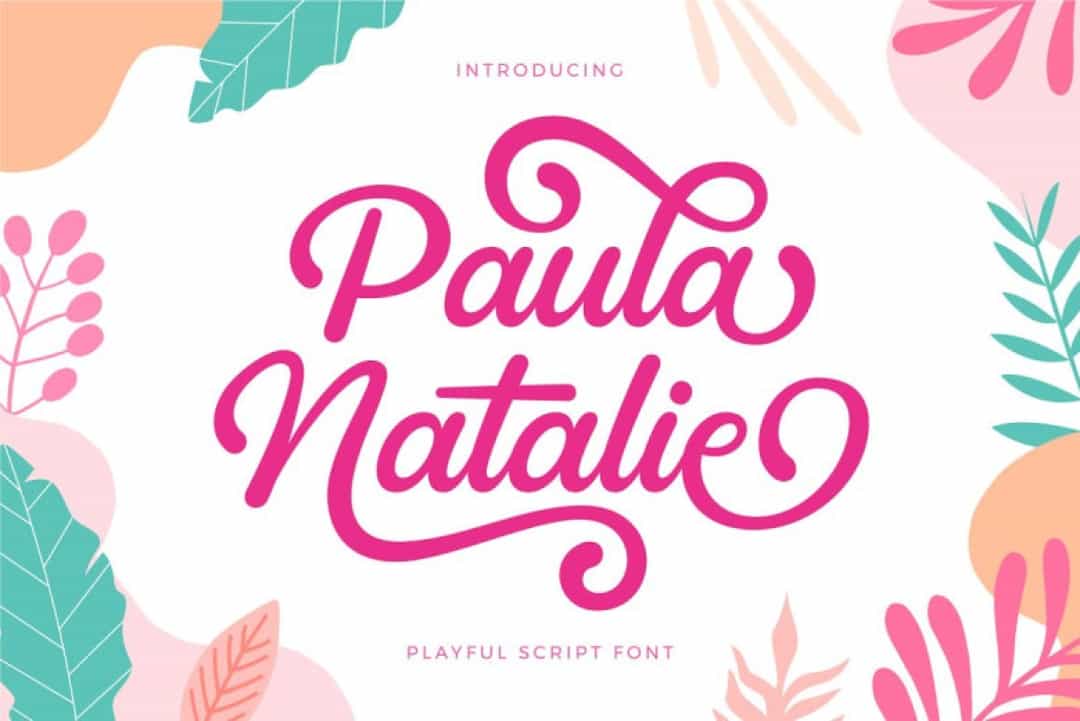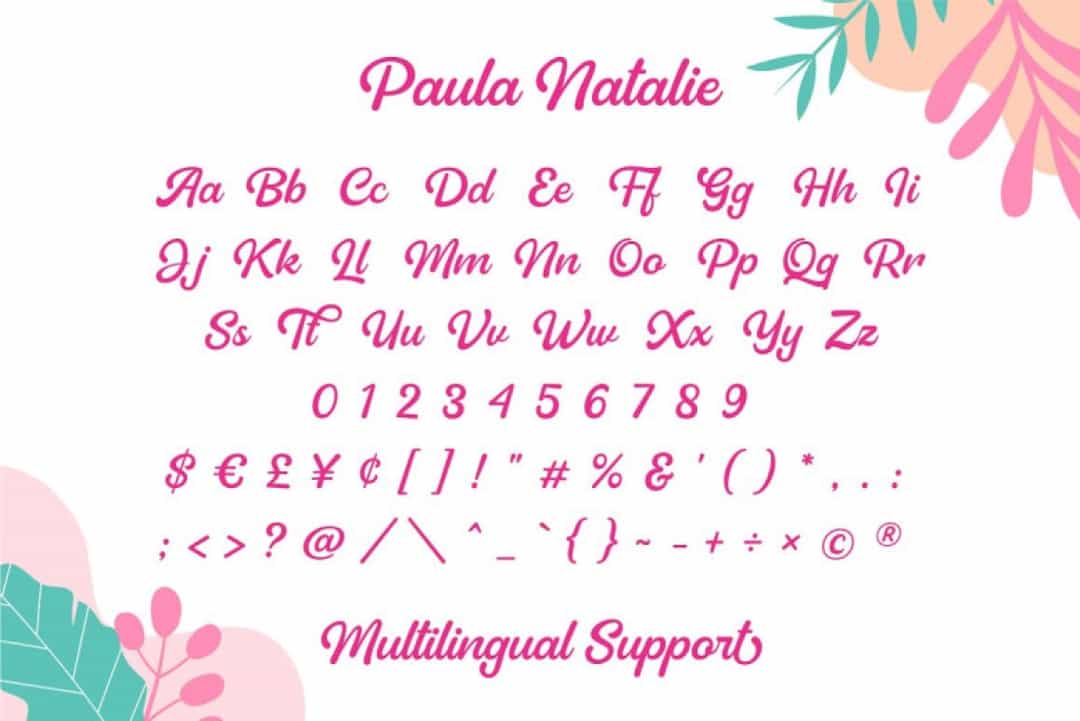
Paula Natalie font is a playful and whimsical calligraphy script font designed to add an upbeat appearance to headlines and logotypes. Paula Natalie font can be used in numerous projects including posters, logos, covers and quotes, product packaging for products sold via social media networks and more!